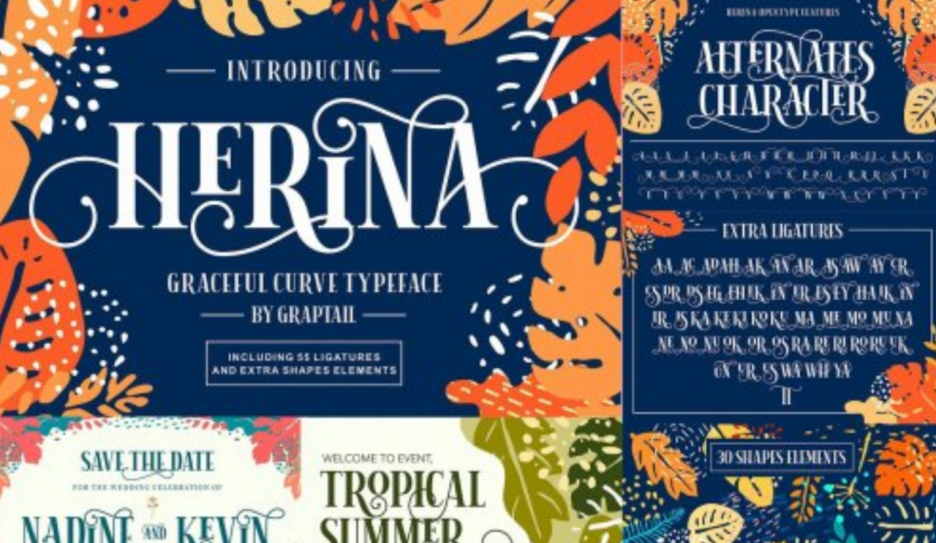
Wow Font Bundle!
The Wow Font Bundle is a carefully curated collection of unique and versatile fonts, perfect for a variety of design projects. This bundle includes a range of font styles, from elegant scripts to bold display types, ensuring you have the right typeface for any occasion.
• Multiple font styles: serif, sans-serif, script, and display
• Various weights: light, regular, bold, and extra bold
Each font in this bundle is designed with attention to detail, offering beautiful letterforms and excellent legibility. The included fonts are suitable for both print and digital applications.
• Ideal for branding projects, logos, and promotional materials
• Perfect for web design, including headers and body text
• Great for print applications like business cards, brochures, and posters